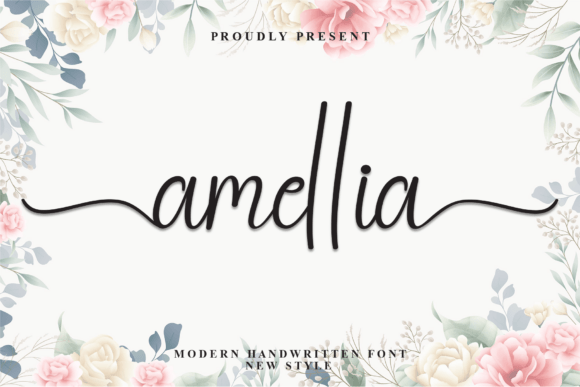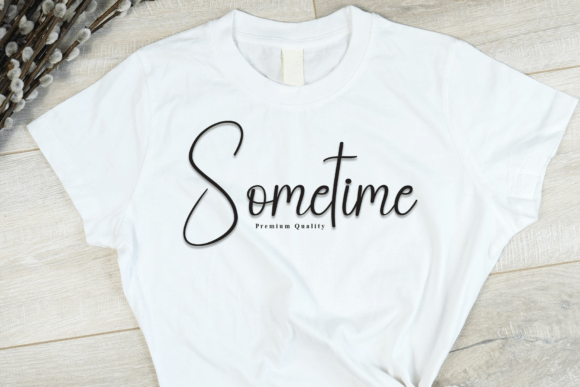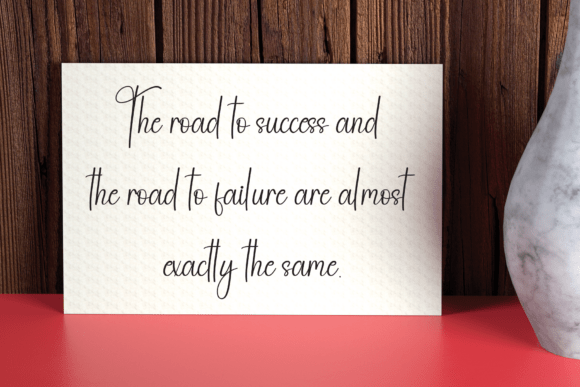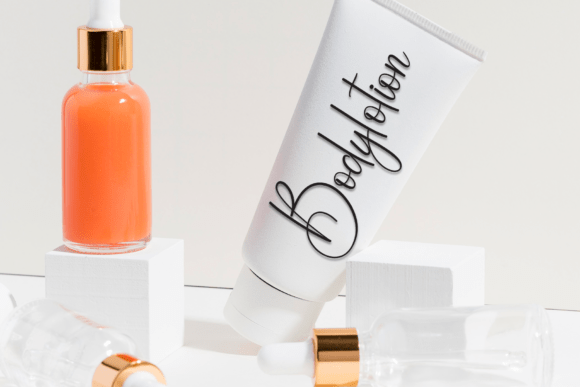
Amellia Font: Elegant Signature Script for Wedding Invitations & Logo Design
About the Amellia Font
Crafted with precision, the Amellia Font is ready to bring your ideas to life. Presenting Amellia, a captivating typeface that effortlessly marries freshness with elegance. Ideal for an array of design applications, it brings a unique aesthetic vibrancy to YouTube banners, signature logo mockups, and wedding invitations. The font’s simplicity equally enhances the appeal of ID cards, flyers, and crafts. Amellia carries the potential to influence your business growth with its distinct charisma. Exuding a refined simplicity, this font stands out with its unique character, ensuring your creations leave an unforgettable impression.
Amellia Font Usage Examples
Amellia Font Example